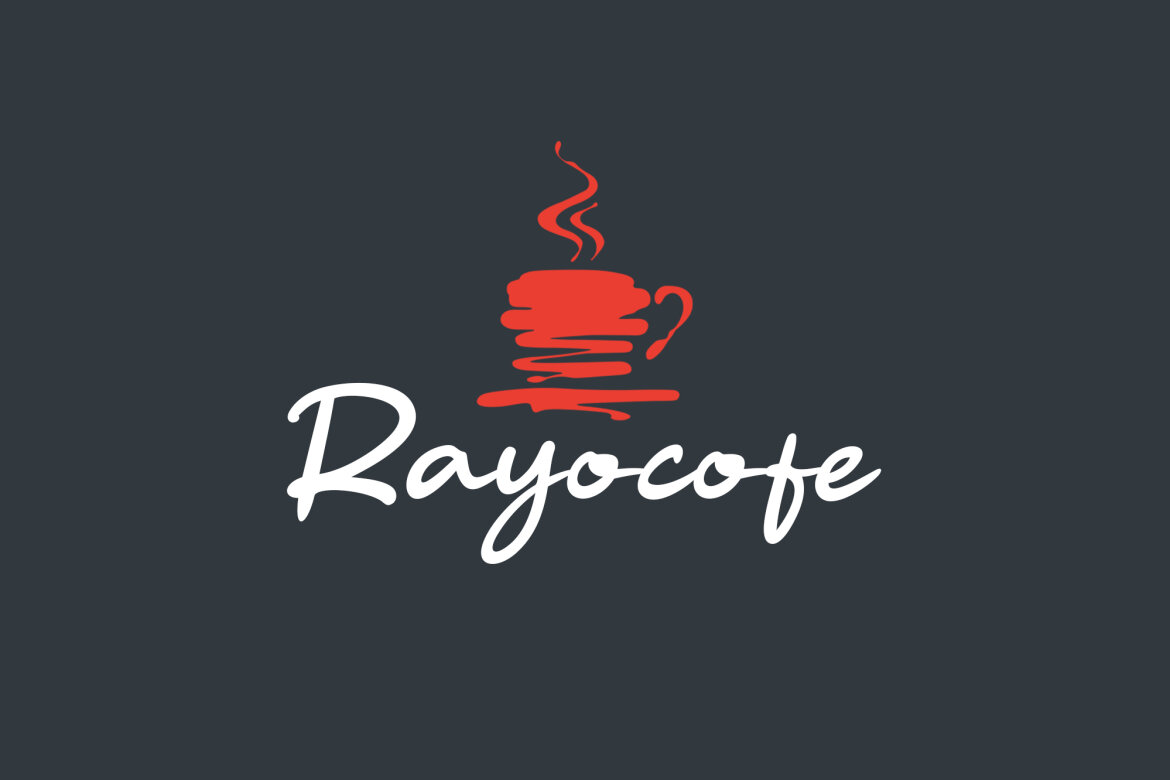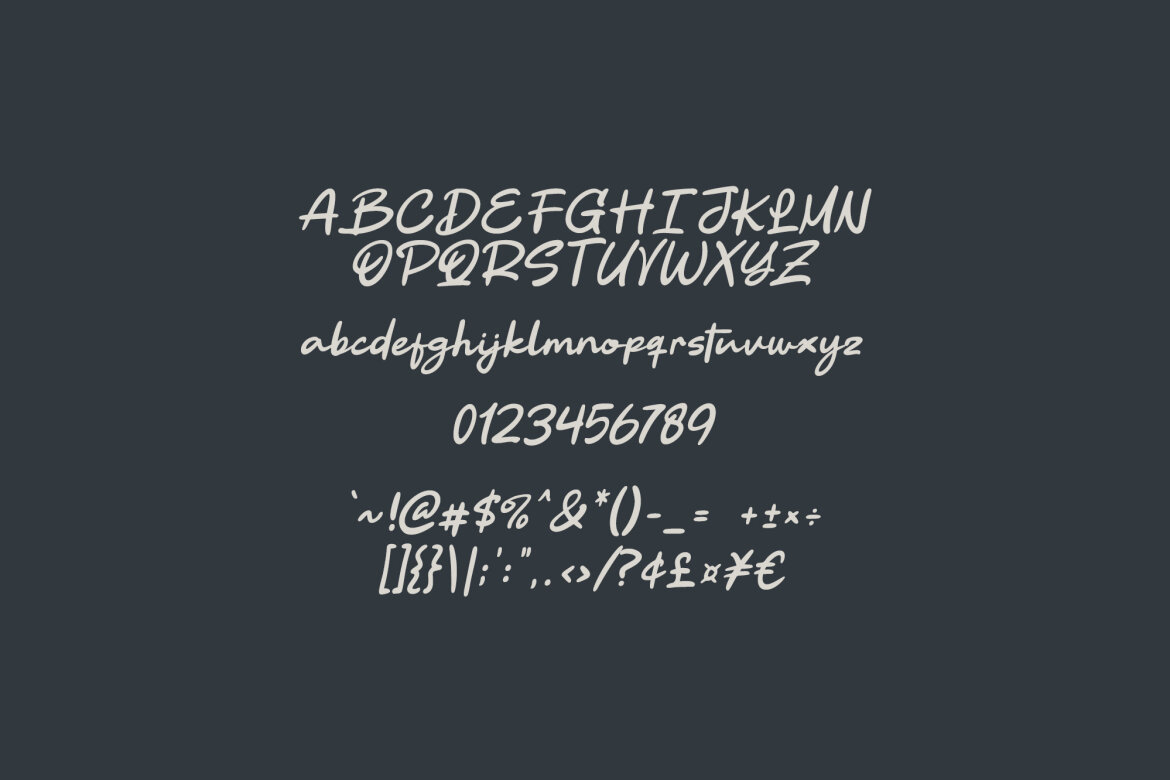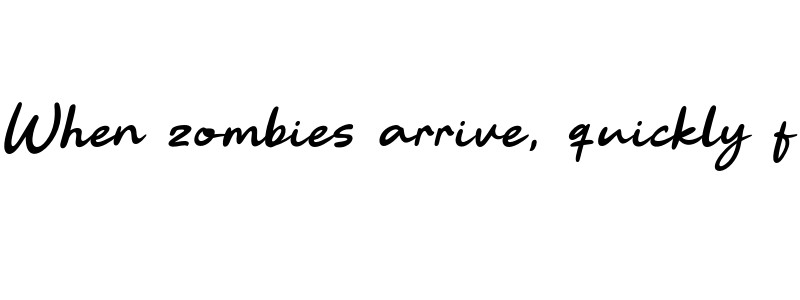
Malvides FREE Font
Malvides
Malvides is a stylish, modern, and elegant script font perfect for posters, logos, magazines, book covers, banners, and many more! Get this amazing font, and use it to create lovely designs. It can easily be matched to an incredibly large set of projects, so add it to your creative ideas and notice how it makes them stand out!